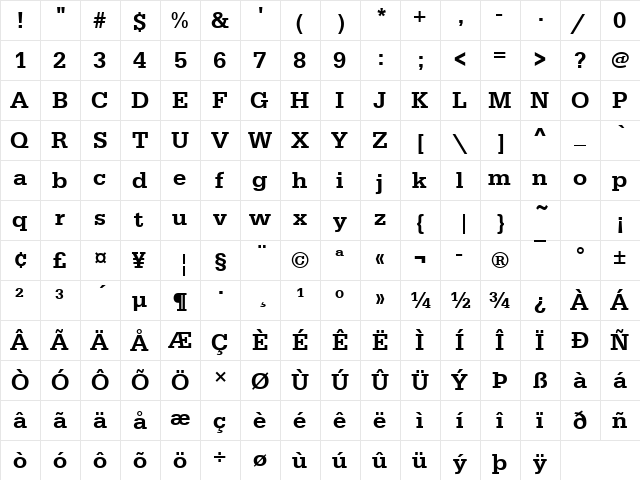
SerifaTMed Regular
Design Context for SerifaTMed Typeface
SerifaTMed brings classic typographic sensibility to the table — its serifs and measured letterforms reflect centuries of print heritage.
Pro Tip: Set SerifaTMed with slightly loose tracking in headlines to let each letterform's detail read clearly at display sizes.